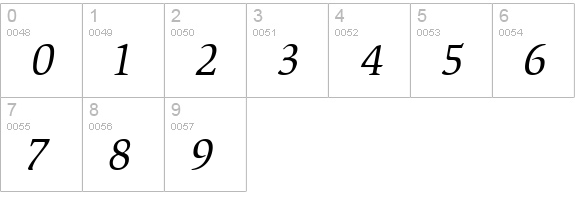
Slimbach Italic is a distinctive, italic variant in the Slimbach typeface family \xE2\x80\x94 well suited to design and typography projects.
Slimbach Italic is a stunning and versatile typeface that exudes elegance and sophistication. Designed by renowned typographer Robert Slimbach, this font is the perfect choice for those seeking a touch of grace and refinement in their design projects. Its elegant, flowing curves and delicate letterforms make it an ideal choice for invitations, branding, editorial design, and more. What makes Slimbach Italic even more appealing is that it is available for free download at FontsMarket.com. This means that designers, creatives, and enthusiasts alike can easily access and utilize this beautiful font in their projects without any cost. Whether you are a professional designer looking to add a touch of class to your work or a hobbyist looking to enhance your personal projects, Slimbach Italic is the perfect choice. With its timeless appeal and versatility, Slimbach Italic can effortlessly elevate any design. Its slender strokes and subtle serifs create a harmonious balance, while its italicized form adds a touch of sophistication. This font is designed with meticulous attention to detail, ensuring that each character is perfectly crafted for legibility and visual appeal. Whether used for headlines, body text, or accents, Slimbach Italic brings a sense of refinement and elegance to any project. Its clean lines and graceful curves make it a pleasure to read, while its subtle variations in stroke width add visual interest. This font is a true testament to Robert Slimbach's mastery of typography. The availability of Slimbach Italic as a free download at FontsMarket.com is a testament to the font's popularity and versatility. By offering this font for free, FontsMarket.com allows designers from all walks of life to access and utilize this remarkable typeface in their projects. So whether you are a professional designer or a passionate hobbyist, don't miss the opportunity to add Slimbach Italic to your font collection. In conclusion, Slimbach Italic is a timeless and elegant typeface that brings a touch of sophistication to any design. Its freely available download at FontsMarket.com makes it accessible to all, ensuring that anyone can harness the beauty and versatility of this font in their creative endeavors. So why wait? Download Slimbach Italic today and let its grace and refinement elevate your designs to new heights.